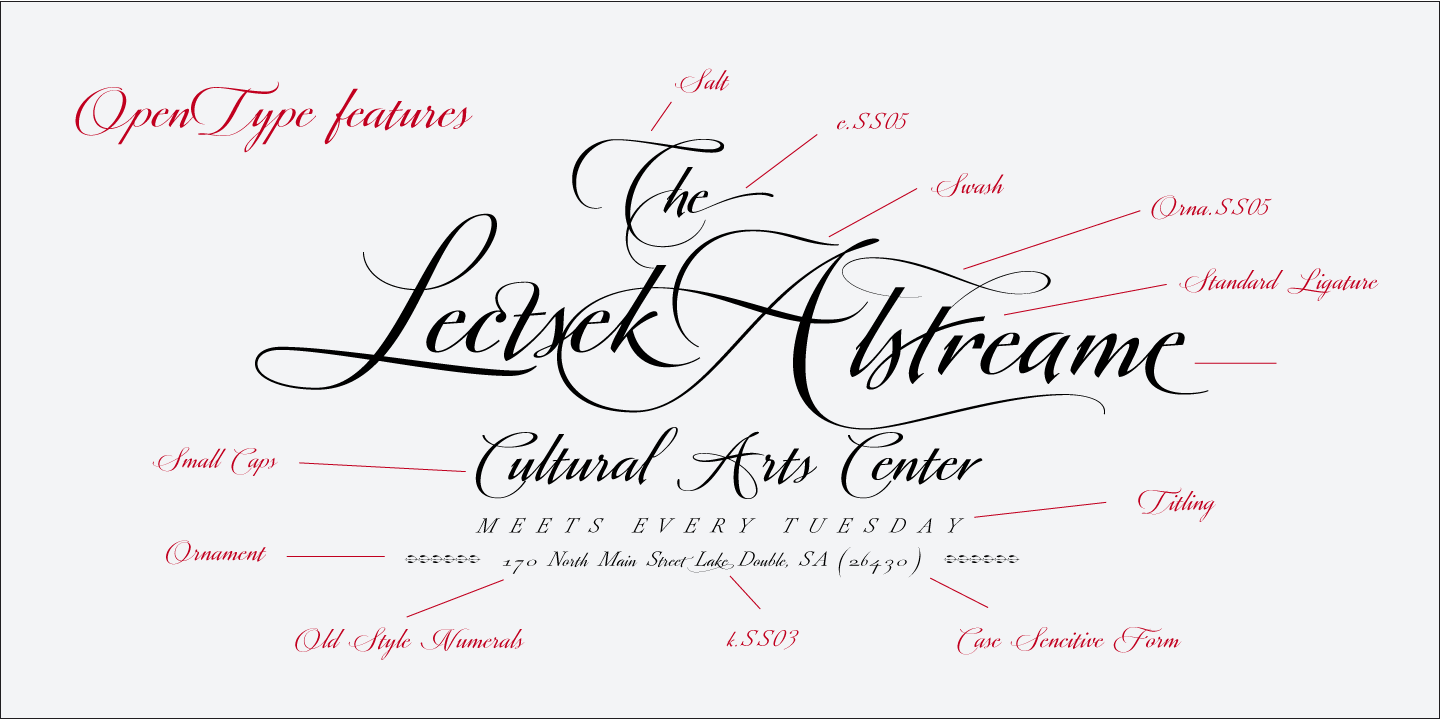
Valentia Font is perfect for Spanish cultural heritage projects, Mediterranean resort branding, flamenco dance promotions, Iberian cuisine restaurants, Valencia tourism campaigns, Spanish language learning materials, traditional tapas bars, and authentic Hispanic cultural celebrations. This passionate typeface brings Spanish elegance and Mediterranean warmth to any design project celebrating the vibrant culture and artistic heritage of Spain and Hispanic traditions.
What makes Valentia Font exciting is its authentic embodiment of Spanish passion combined with Mediterranean sophistication that perfectly captures the fiery spirit and cultural richness of Iberian heritage and Hispanic artistic expression. The elegant letterforms feature passionate curves and Spanish grace that create an unmistakably Hispanic appearance. Each character dances with cultural pride, making it ideal for brands that celebrate Spanish culture, Hispanic heritage, and the passionate artistry that defines Iberian creative traditions.
The Valentia Font family typically includes regular and bold weights with complete uppercase and lowercase letters, numbers, punctuation marks, and Spanish special characters. Many versions feature additional Hispanic decorative elements, cultural motifs, and traditional Spanish symbols that enhance the Mediterranean aesthetic and provide creative flexibility for Hispanic and cultural design applications.
Whether you're developing Spanish cultural brands or creating Hispanic heritage materials, Valentia Font Free Download offers unmatched cultural authenticity and Spanish sophistication. This passionate typography choice transforms ordinary text into cultural celebrations that resonate with audiences appreciating Spanish artistry and Hispanic traditions. The font's passionate construction ensures exceptional performance across cultural applications while maintaining its distinctive Spanish character that makes every design project feel like a fiesta where Spanish culture comes alive with passion, artistry, and the warm Mediterranean spirit that defines the heart of Hispanic heritage.